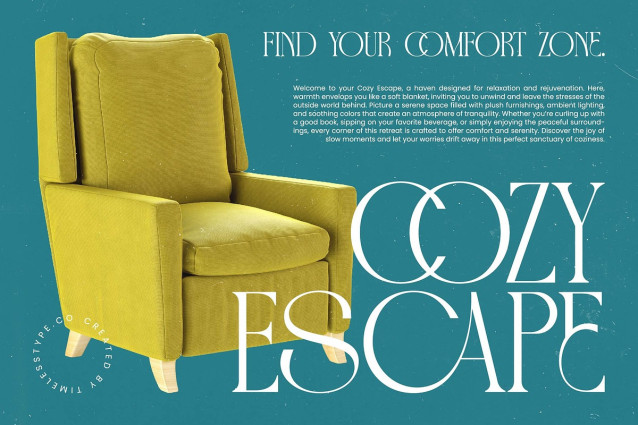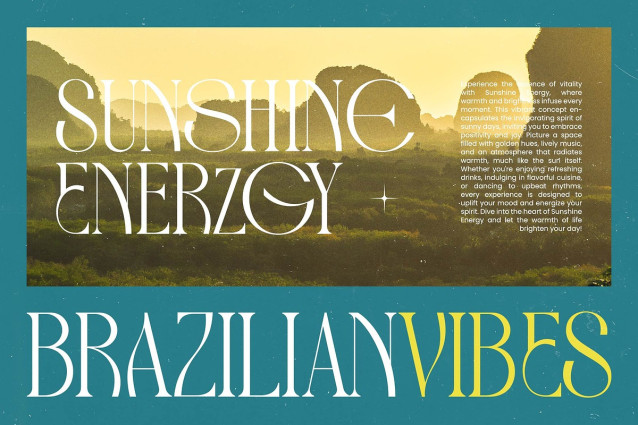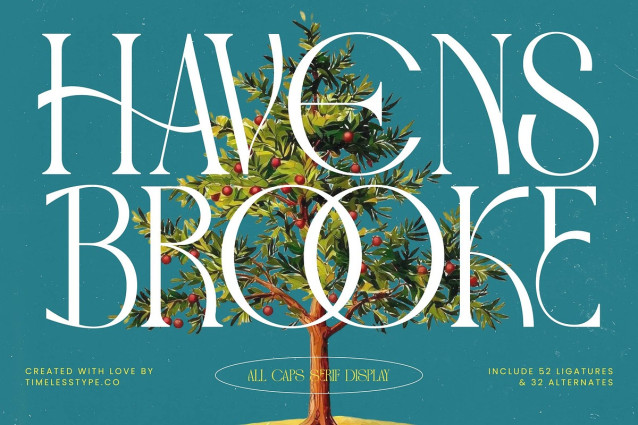
Havens Brooke Font
Havens Brooke Font is a masterful blend of timeless elegance and contemporary flair, designed to command attention from the very first glance. This exquisite all-caps display face offers a sophisticated aesthetic that instantly elevates any creative project into a work of art.
Drawing inspiration from the lush, organic beauty of a bountiful orchard, this typeface captures the essence of natural growth and structured refinement. The interplay between sharp serifs and flowing ligatures mimics the delicate balance found in nature, creating a visual narrative that is both grounded and ethereal.
With its modern serif display structure and luxury typography soul, this font exudes an air of exclusivity and high-end charm. The high-contrast serif strokes provide a sharp, clean finish that ensures a powerful editorial font presence, while the intricate details deliver a lasting branding impact for discerning clients.
Capturing the current modern serif trend, this typeface is perfectly positioned for designers seeking editorial display fonts that break away from the mundane. It embraces the shift toward character-driven typography, offering a unique voice that resonates with contemporary visual storytelling and high-fashion aesthetics.
This font is an ideal choice for high-stakes logo design and comprehensive branding systems where personality is paramount. Its refined nature makes it a stunning selection for editorial layouts, premium packaging, romantic wedding stationery, and avant-garde fashion magazines.
The versatility of this font is expanded through a rich library of 52 ligatures and 32 unique alternates including stylish swashes that allow for custom typographic arrangements. Full support for multilingual projects and a wide array of international characters ensure that your designs remain globally accessible without sacrificing style.